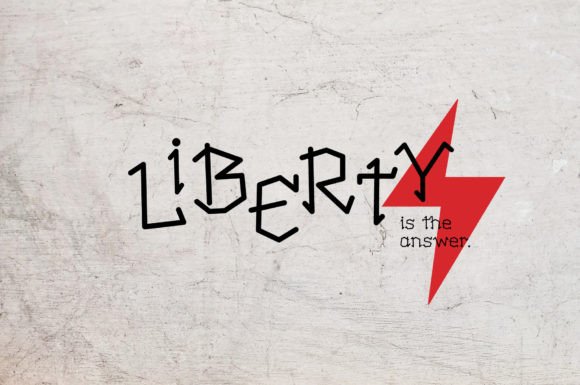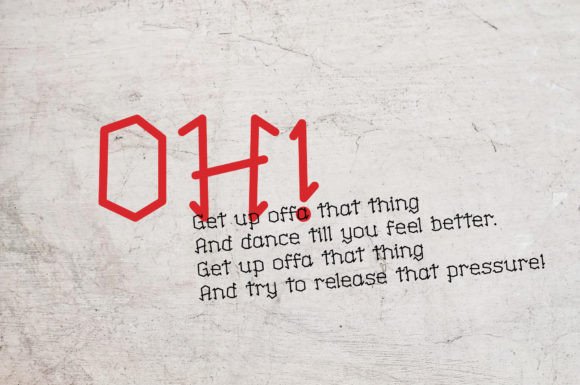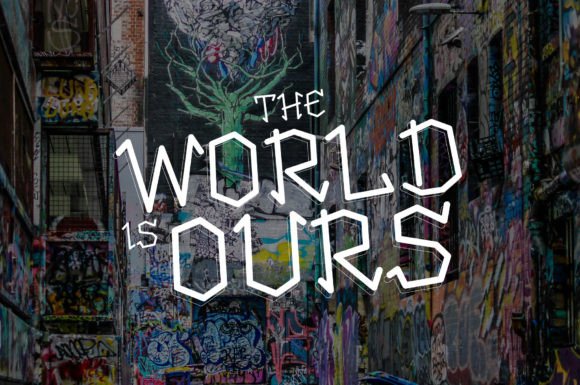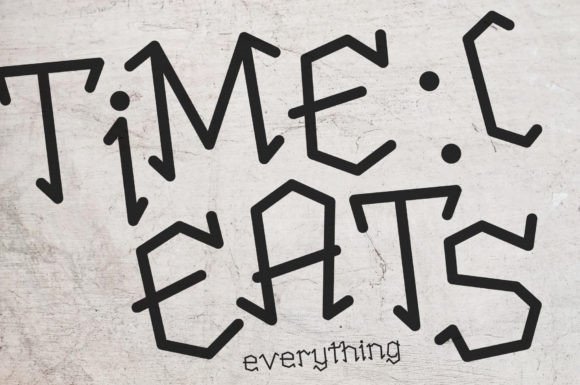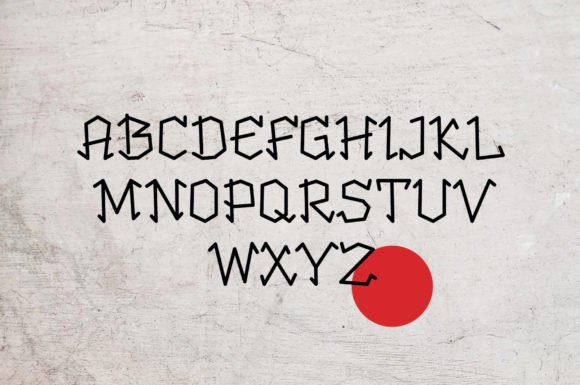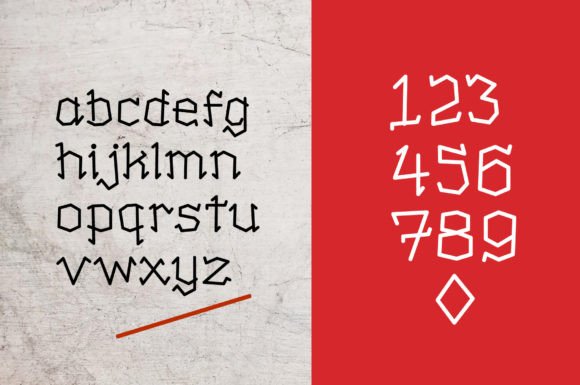
Introducing Freestyle Font: The Authentic Graffiti Typeface
Are you looking for a font that captures the essence of urban art and nostalgia? Look no further than Freestyle Font, a modern street font inspired by the graffiti and tags that adorn the streets of New York City. This distinctive and memorable typeface is perfect for designers and crafters seeking to evoke the iconic era of the 1980s and 1990s in NYC.
The Inspiration Behind Freestyle Font
Freestyle Font was born out of the vibrant street art scene in New York City. The font’s creator drew inspiration from the colorful tags and graffiti that cover the city’s buildings, subway trains, and streets. The result is a font that exudes the energy, creativity, and rebellious spirit of urban art. With Freestyle Font, you can bring a piece of NYC’s rich cultural heritage to your designs.
Key Features of Freestyle Font
- Authentic Graffiti Style: Freestyle Font boasts an authentic graffiti style that is reminiscent of the urban art scene in NYC.
- Distinctive and Memorable: The font’s unique character set and bold lines make it stand out from other typefaces, ensuring your designs will grab attention.
- Vintage and Modern Appeal: Freestyle Font seamlessly blends vintage and modern elements, making it perfect for a wide range of design projects.
- Nostalgic Era: This font is ideal for designers seeking to evoke the nostalgia of the 1980s and 1990s in NYC.
Uses for Freestyle Font
Freestyle Font is versatile and can be used in various design projects, including:
- Graphic Design: Use Freestyle Font to create bold and eye-catching posters, flyers, and brochures.
- Logos and Branding: This font is perfect for logos, labels, and packaging designs that require a unique and memorable touch.
- Digital Art: Freestyle Font can add a touch of urban grit to your digital art, illustrations, and animations.
- Crafting and Scrapbooking: This font is ideal for crafters and scrapbookers looking to add a personal touch to their projects.
Tips for Using Freestyle Font
To get the most out of Freestyle Font, consider the following tips:
- Use it boldly: Freestyle Font is designed to make a statement, so don’t be afraid to use it in bold and eye-catching ways.
- Experiment with colors: The font’s urban inspiration lends itself well to bright, bold colors.
- Mix and match: Combine Freestyle Font with other fonts to create unique and visually appealing typography.
Freestyle Font is an authentic graffiti typeface that brings the energy and creativity of urban art to your designs. With its distinctive and memorable style, this font is perfect for designers and crafters seeking to evoke the nostalgia of the 1980s and 1990s in NYC. Whether you’re working on a graphic design project, crafting, or scrapbooking, Freestyle Font is sure to add a touch of urban grit and personality to your work.